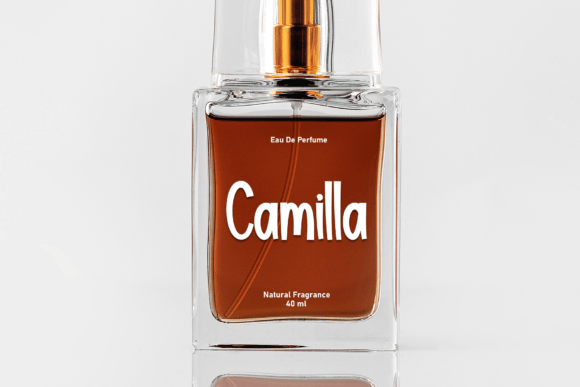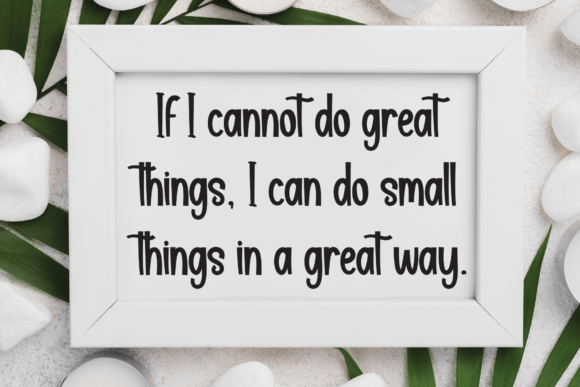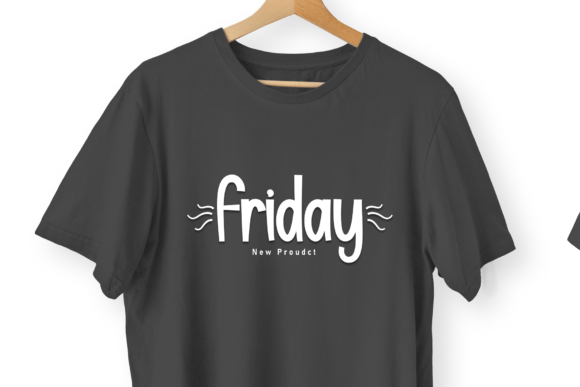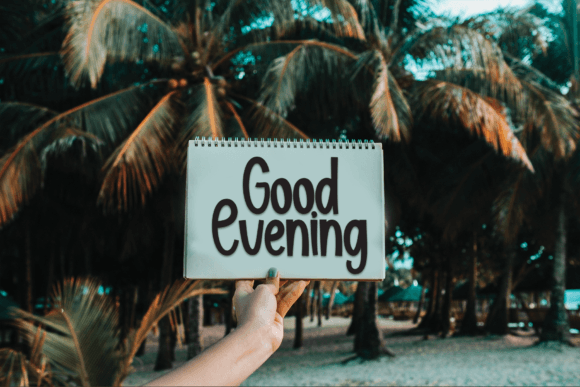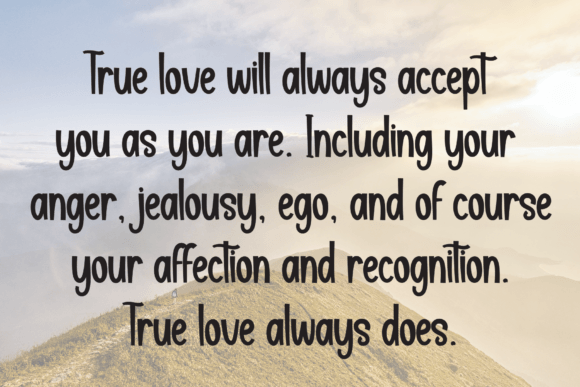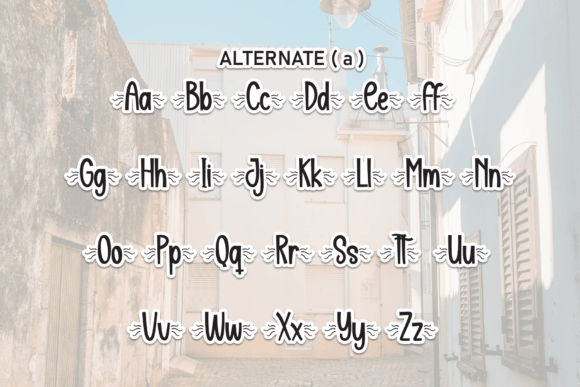
Introduction to Outdor Cinematic Font
Outdoor Cinematic is a sweet and friendly handwritten font.
Cute and fun, this font is ideal for writing wedding invitations, cards, or any other design that might need a fun touch .
Key Features of Outdor Cinematic Font